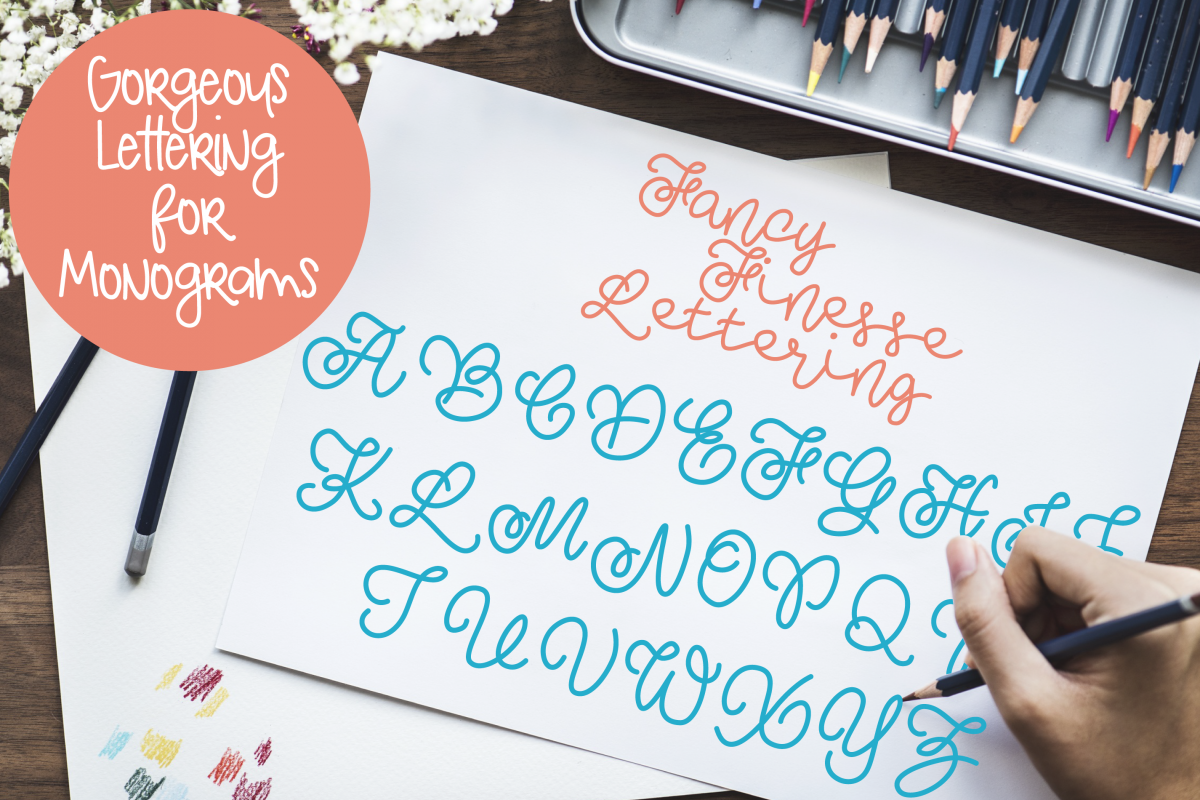
Fancy Finesse Lettering - Perfect for Monograms!
Fancy Finesse Lettering comes as a font - but the letters do not connect like a font. These beautiful ornate letters are meant to be used for text decoration or ornate design. Perfect for weddings, invitations, and decals.
Great for: wall decorations, nursery, graphic design, events, promotions, invitations, banners, stickers, cards, flyers, magnets, books, e-books, magazines, posters, package design, programs, business cards, postcards, brochures, logos, branding, advertising, media, social media, e-mail design, web design, ux design, accessories, home décor & much more!